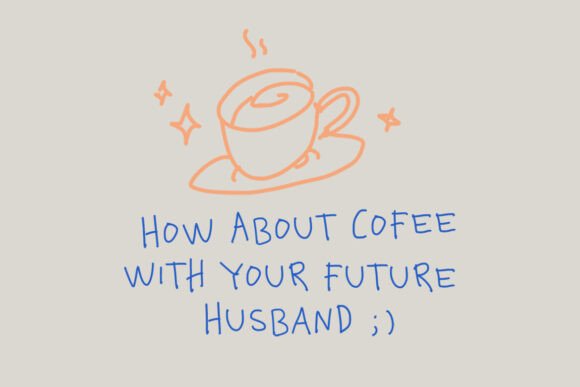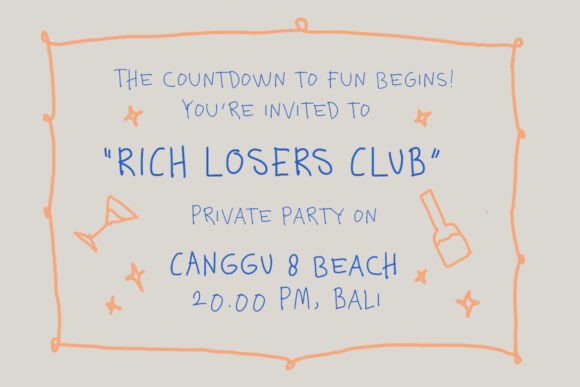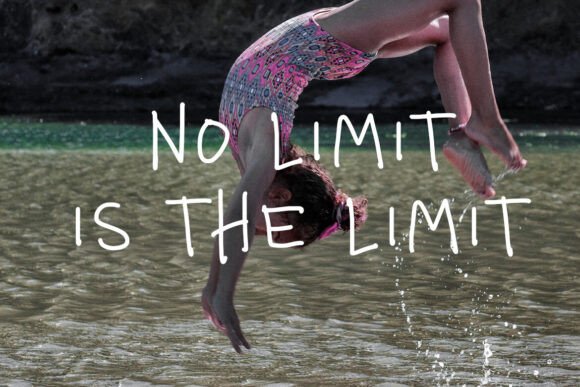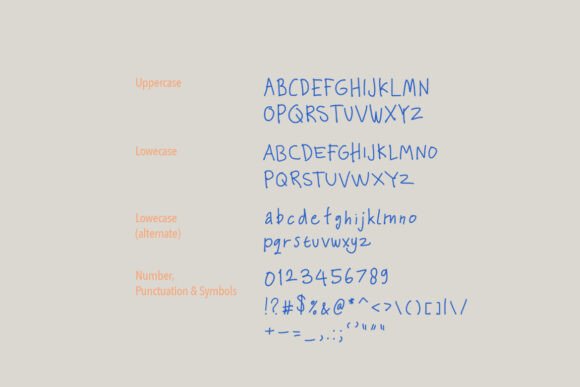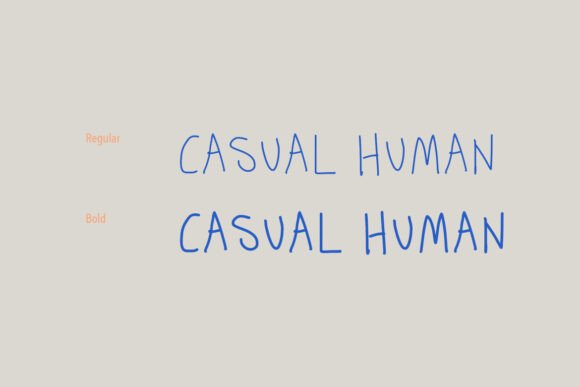
When Handwriting Meets Design
Have you ever stared at a blank piece of paper, pen in hand, waiting for inspiration to strike? It’s a moment many creatives can relate to, and it’s often in these moments that something truly unique is born. For designers looking to add a touch of personality to their projects, the quest for the perfect font can be a daunting one. But what if you could capture the essence of human handwriting in a font that’s both natural and effortless?
Enter the Casual Human Font, a 100% hand-lettered creation that embodies the rough, imperfect charm of handwritten notes. Perfect for designs that require a relaxed, kid-friendly vibe, this font is a game-changer for designers looking to add some authenticity to their work. With both regular and bold versions available, the Casual Human Font is an invaluable addition to any design arsenal.
Casual Human Font Key Features
- Unique Characteristics: Casual Human Font features a friendly, approachable feel with subtle imperfections, giving it a unique and human-like quality.
Casual Human Font Review
Overall, I’d say the Casual Human Font is a solid addition to any designer’s toolkit. It’s got a certain je ne sais quoi that makes it feel approachable and relatable.
Here are some things that work well: ✨
- Friendly feel: The font’s rounded edges and gentle curves give it a warm, welcoming vibe that’s perfect for casual communication.
- High legibility: Even at smaller sizes, the font remains easy to read, making it a great choice for body text.
- Good versatility: The Casual Human Font works well in a variety of contexts, from digital signage to print materials.
However, there are a few limitations: ⚠️
- Not ideal for formal use: While the font is great for casual communication, it may not be the best choice for formal documents or presentations.
- Lacks distinction: The font’s friendly feel can sometimes make it feel a bit too generic or unremarkable.
Overall, I’d give the Casual Human Font 4 out of 5 stars. It’s a solid, dependable choice that’s sure to please, but may not blow anyone away. If you’re looking for a friendly, approachable font for everyday use, the Casual Human Font is definitely worth considering.
For optimal results, use Casual Human Font in titles, headings, and body text for a friendly and approachable tone. It’s ideal for social media graphics, blog posts, and marketing materials.
Can I customize the Casual Human Font for a specific project?